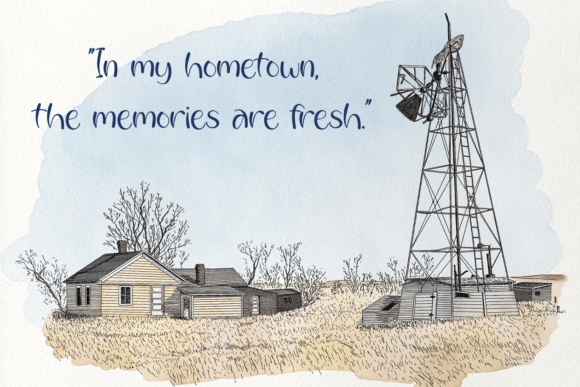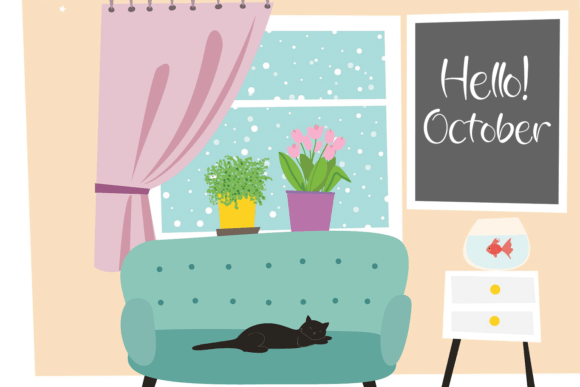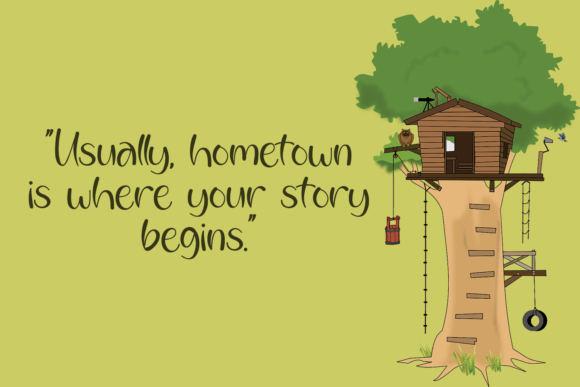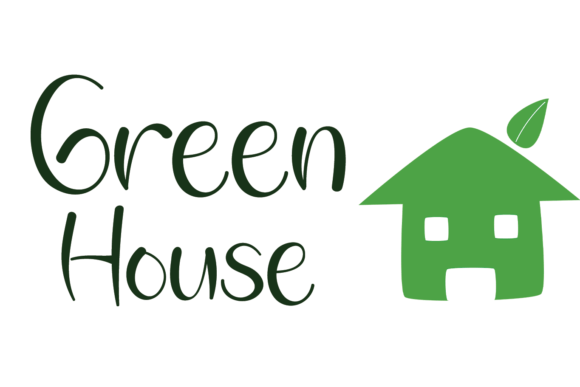
Introduction to Happy House Font
Happy House is a whimsical and casual display font.
The distinct, rounded letters make this font a masterpiece Fall in love with its incredibly versatile style and use it to create spectacular designs.